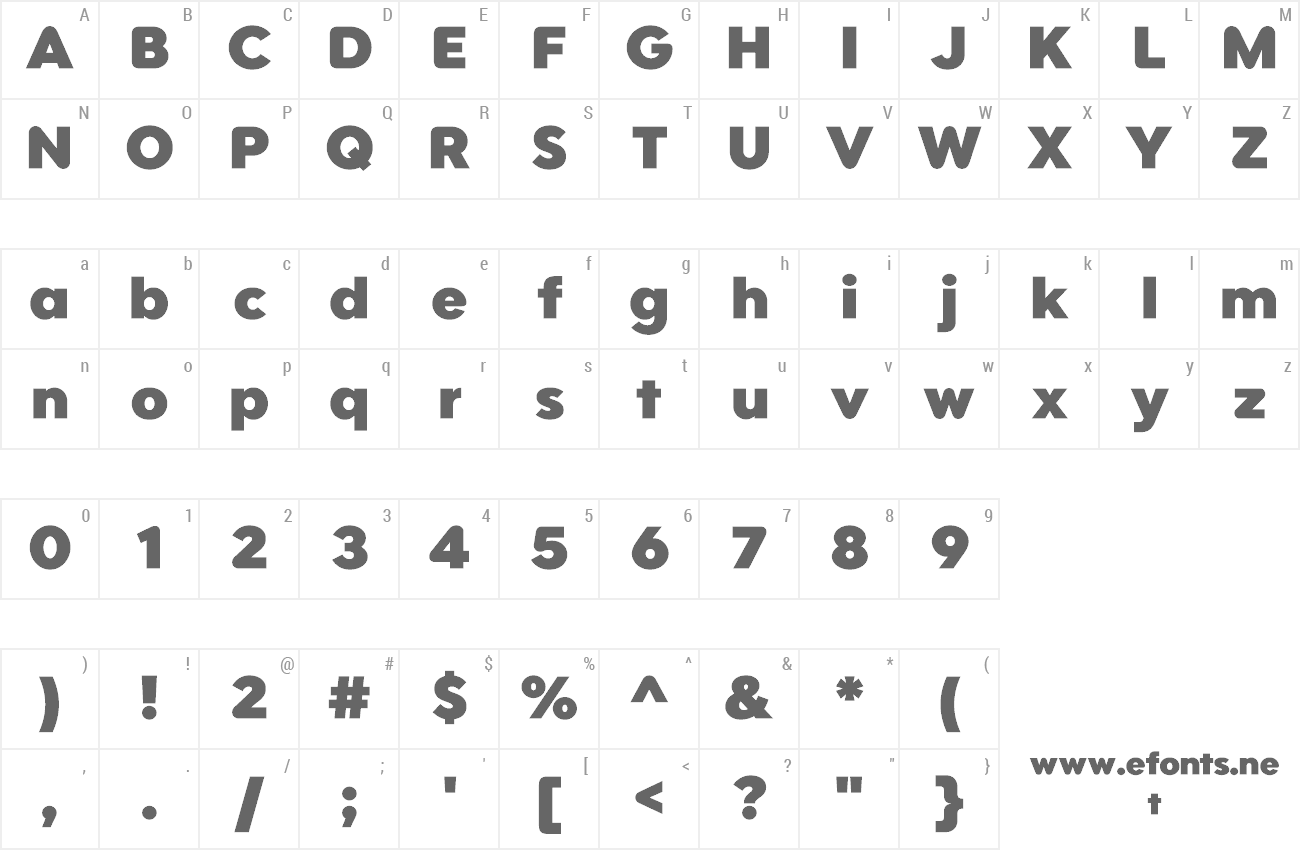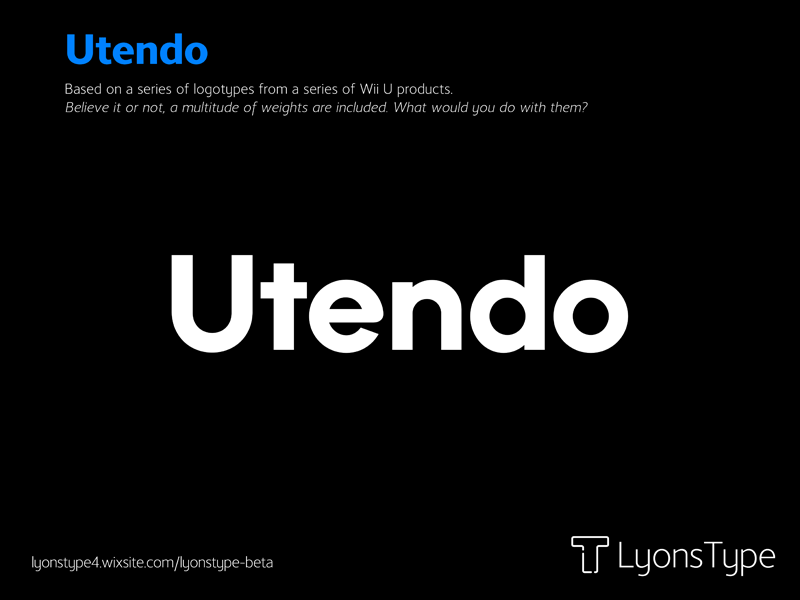
| Font name: | Utendo |
| Author: | LyonsType |
| Note by LyonsType | |
Based on a series of logotypes from a series of Wii U products. Believe it or not, a multitude of weights are included. What would you do with them? |